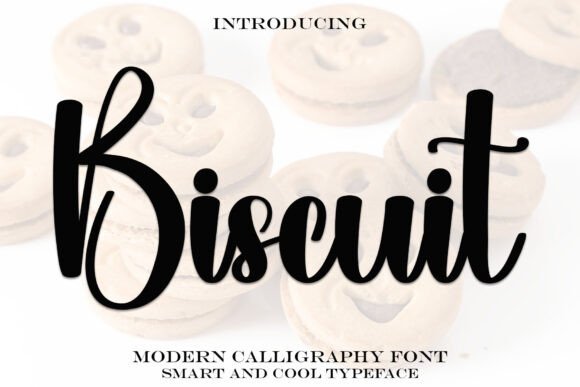
The Biscuit Font: Elevate Your Designs with Elegance and Class
I’ll never forget the time I was working on a wedding invitation project, and my client asked for a font that exuded elegance and sophistication. I scoured the internet, trying out font after font, but nothing seemed quite right. That was until I stumbled upon the Biscuit font. With its trendy, handwritten style and impeccable form, it was the perfect fit. In this article, I’ll share my experience with the Biscuit font, its features, and how to make the most of it in your design projects.
A Personal Review: What I Love About Biscuit
The Biscuit font has quickly become one of my go-to fonts for a variety of design projects. Here are some things I love about it:
- ✨ Elegant and sophisticated: The Biscuit font has a timeless, classic feel that’s perfect for projects that require a touch of luxury.
- ✅ Contemporary atmosphere: Despite its classic inspiration, the Biscuit font has a modern twist that makes it suitable for a wide range of design projects.
- ✨ Impeccable form: The font’s attention to detail and precise lettering make it a joy to work with.
While the Biscuit font is an excellent choice for many projects, there are a few things to keep in mind:
- ⚠️ Limited use in body text: While the Biscuit font is beautiful, it’s not the most readable font for long blocks of text. It’s best used for headings, titles, or short paragraphs.
- 🤔 Some glyphs may require adjustment: Depending on the project, you may need to adjust some glyphs to ensure they fit perfectly with the rest of the text.
- Experiment with OpenType features, such as stylistic alternates, to add visual interest to your text.
- Take advantage of OpenType features, such as glyphs and ligatures, to add depth and character to your text.
The Designer Inspiration Behind Biscuit
The Biscuit font was inspired by timeless classic calligraphy. Its designer sought to create a font that combined the elegance of traditional calligraphy with the modernity of contemporary design. The result is a font that’s both sophisticated and trendy.
- Q: What type of projects is the Biscuit font best suited for?
- A: The Biscuit font is perfect for projects that require a touch of elegance and sophistication, such as wedding invitations, luxury branding, and high-end advertising.
- Q: Can I use the Biscuit font for body text?
- A: While the Biscuit font is beautiful, it’s not the most readable font for long blocks of text. It’s best used for headings, titles, or short paragraphs.
- Q: Does the Biscuit font support OpenType features?
- A: Yes, the Biscuit font supports OpenType features, including stylistic alternates, glyphs, and ligatures.